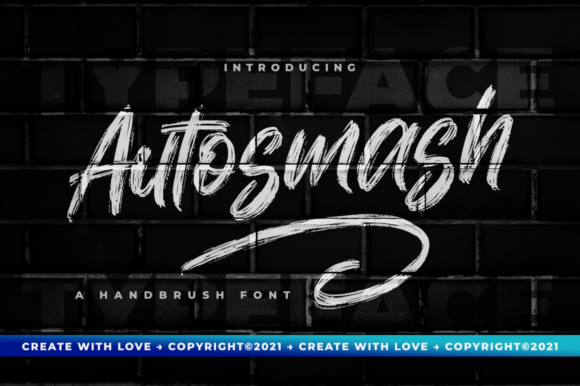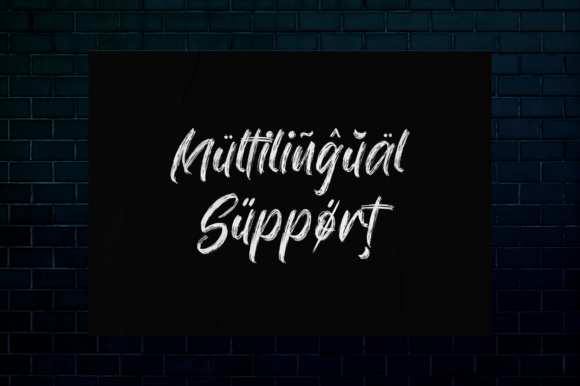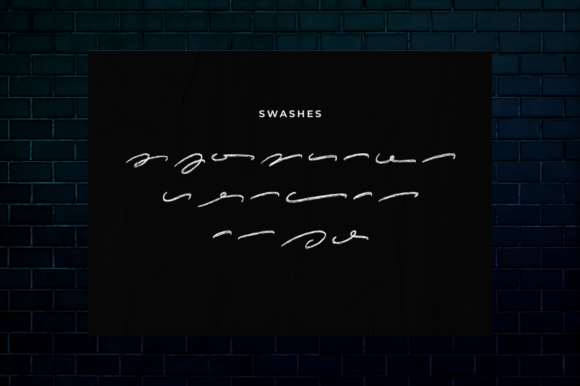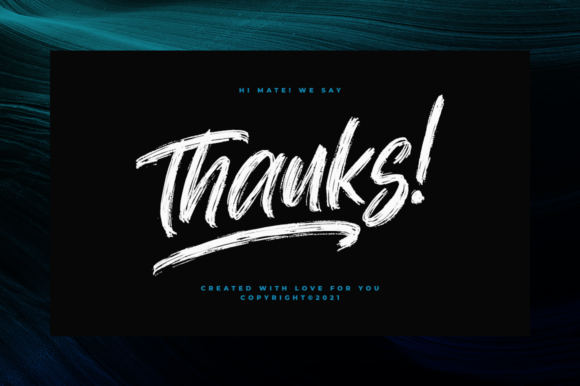
About Autosmash Font
Autosmash is a chic, trendy script font that emanates confidence and versatility. Its stylish alternates and ligatures make this font the perfect match for any project.